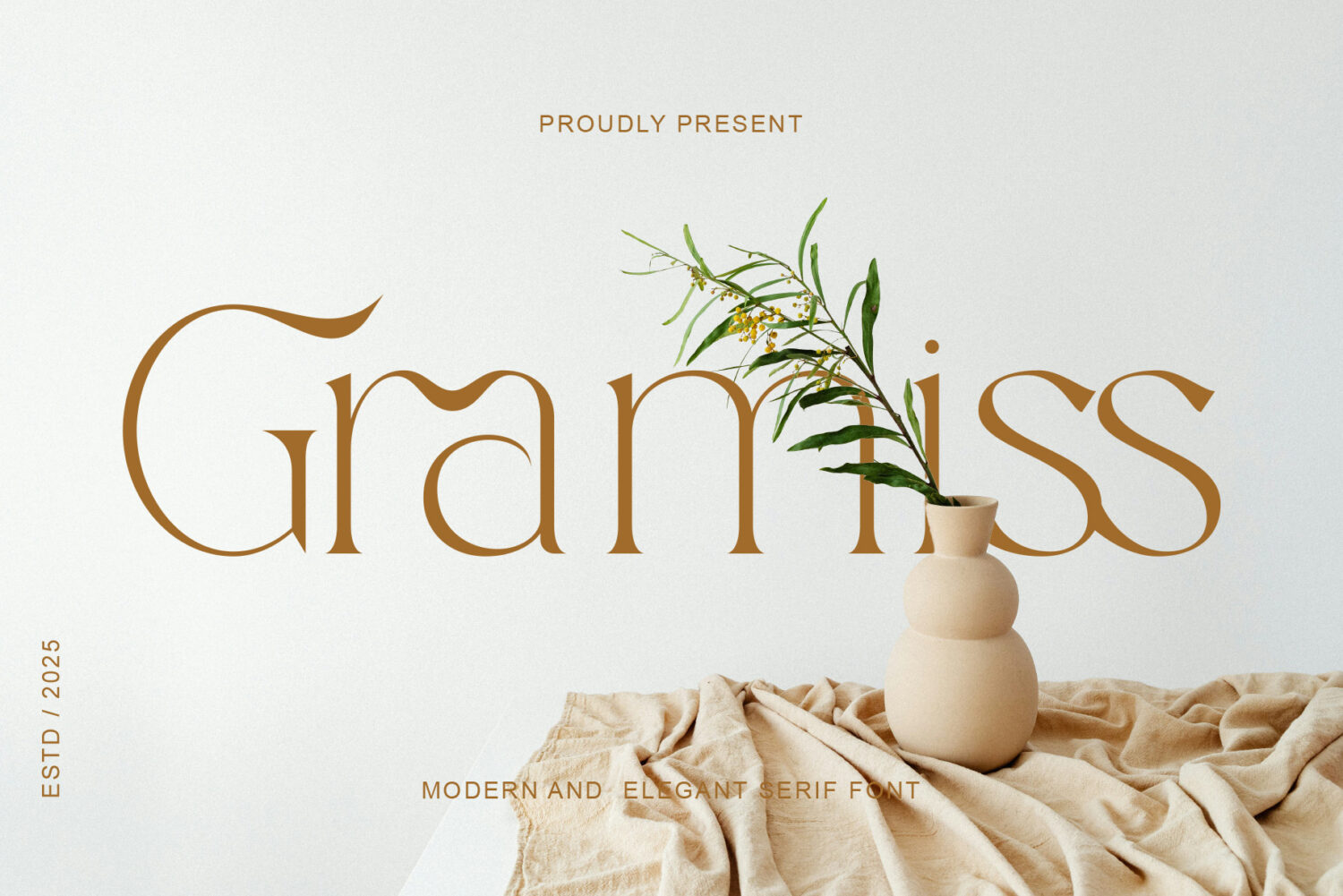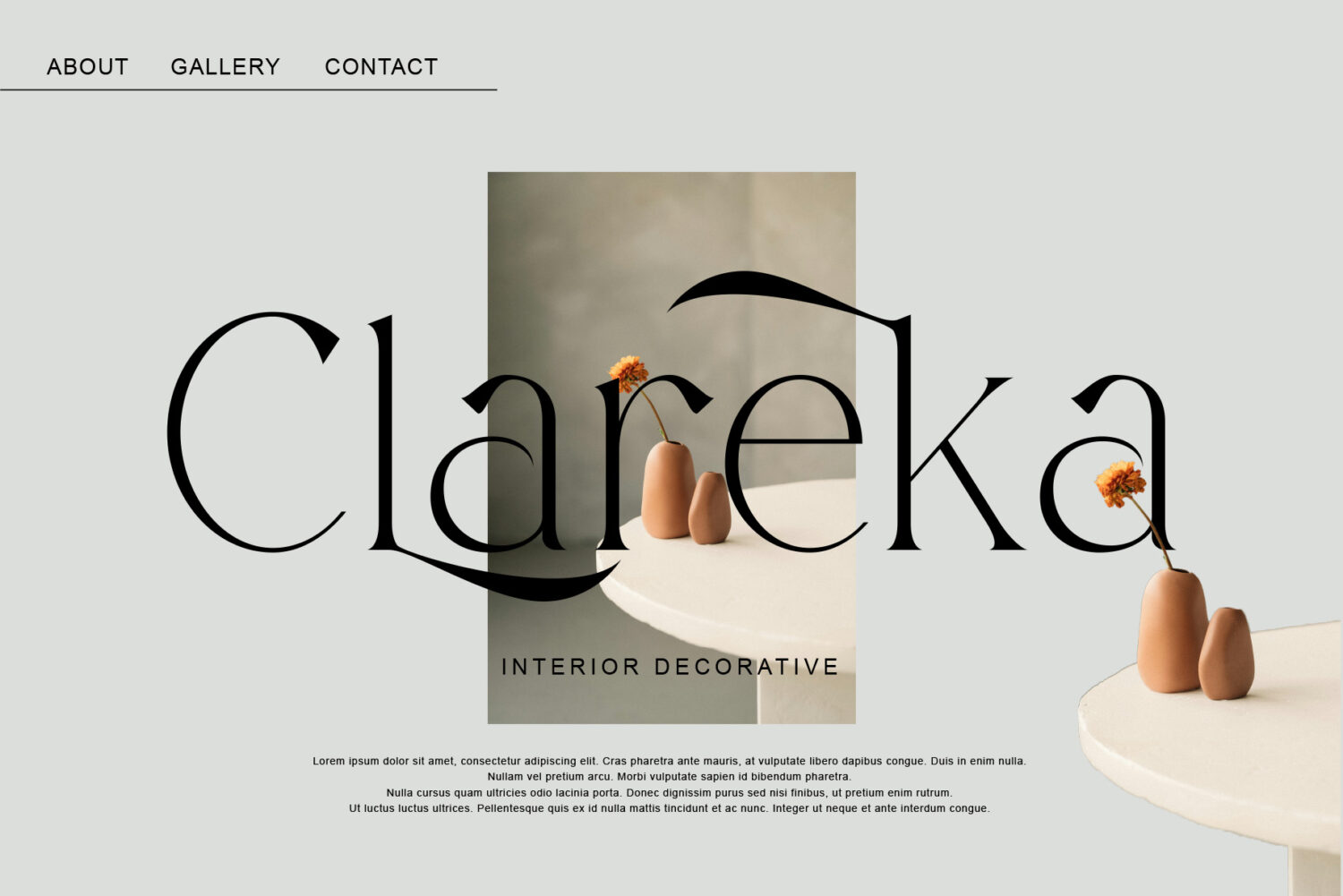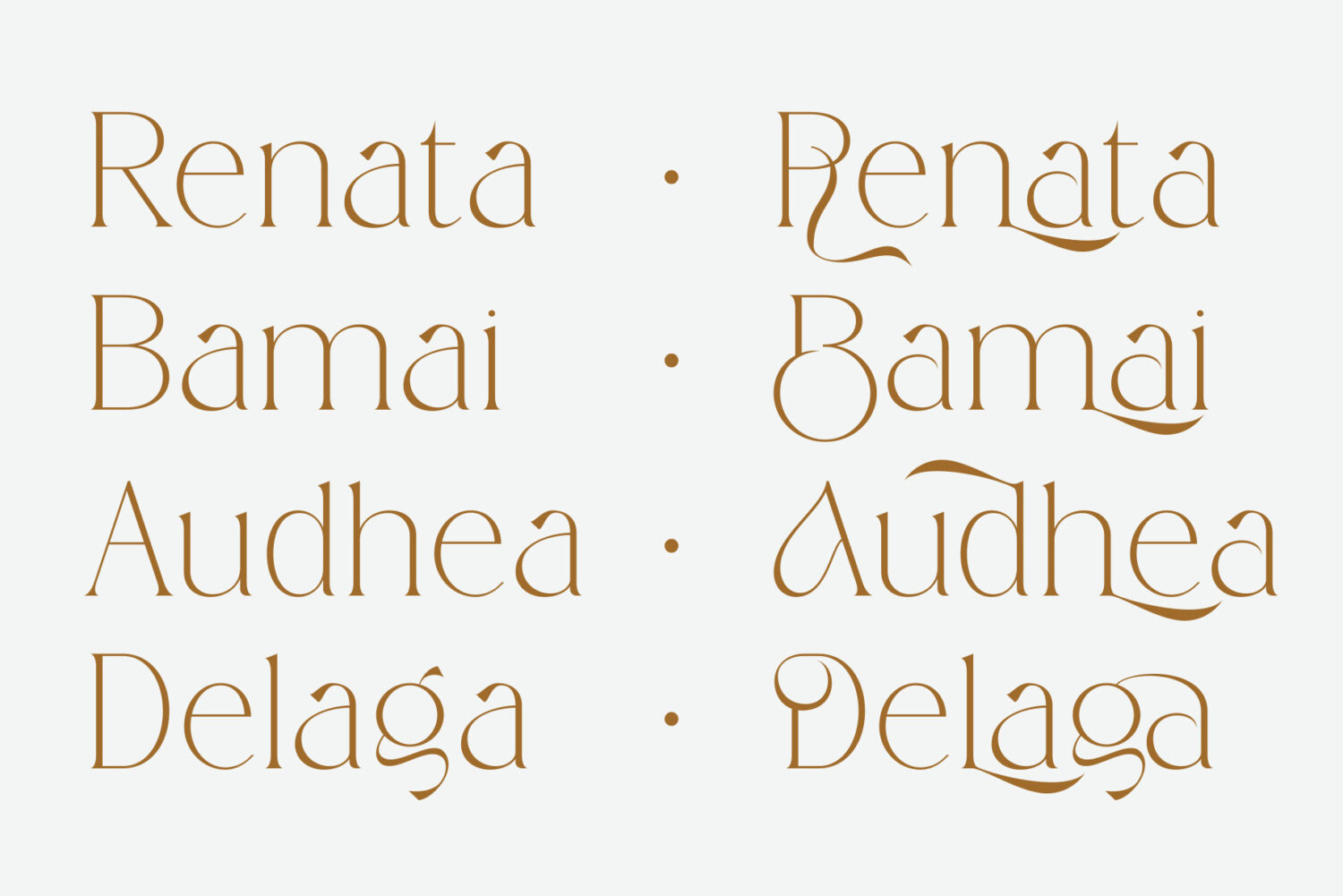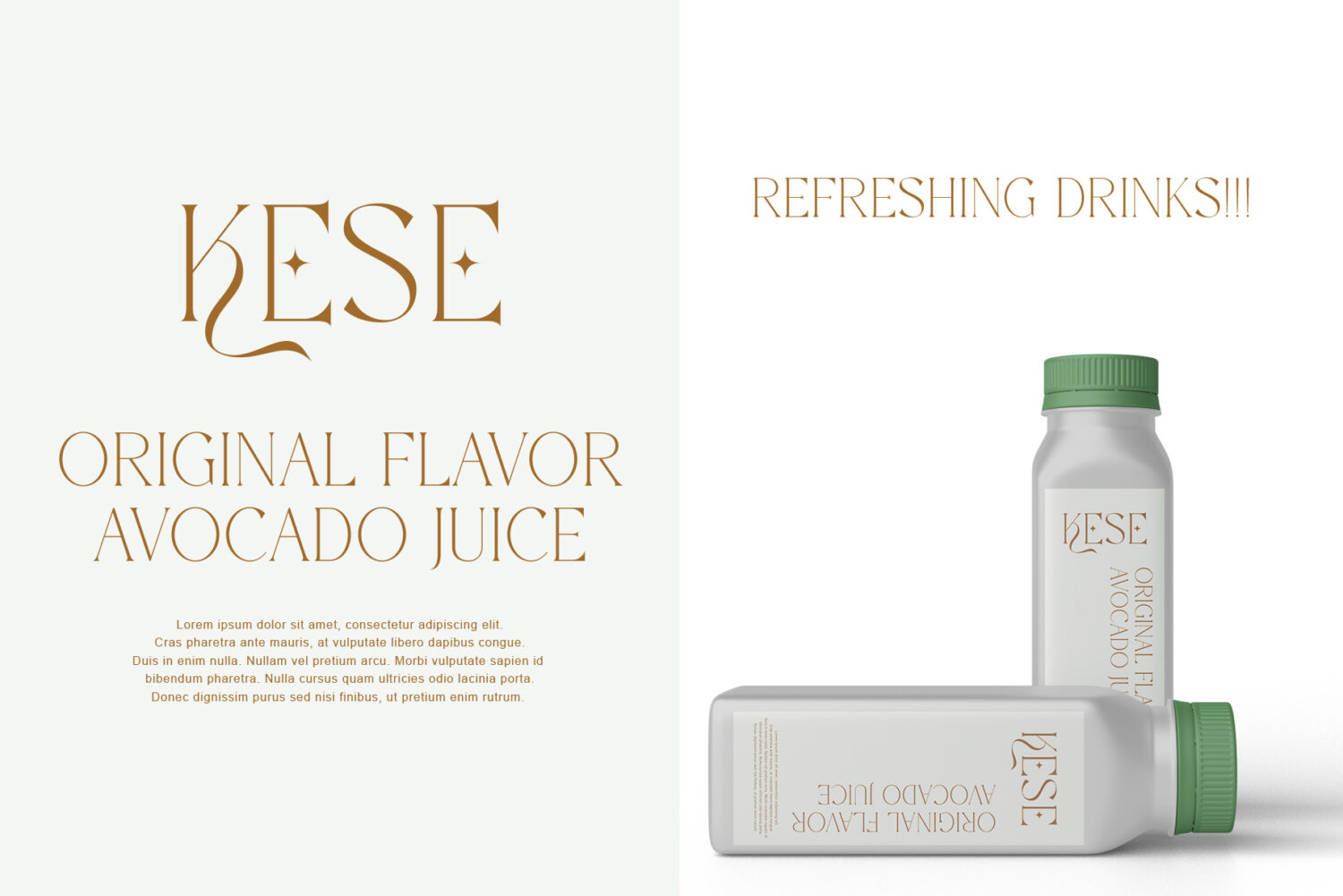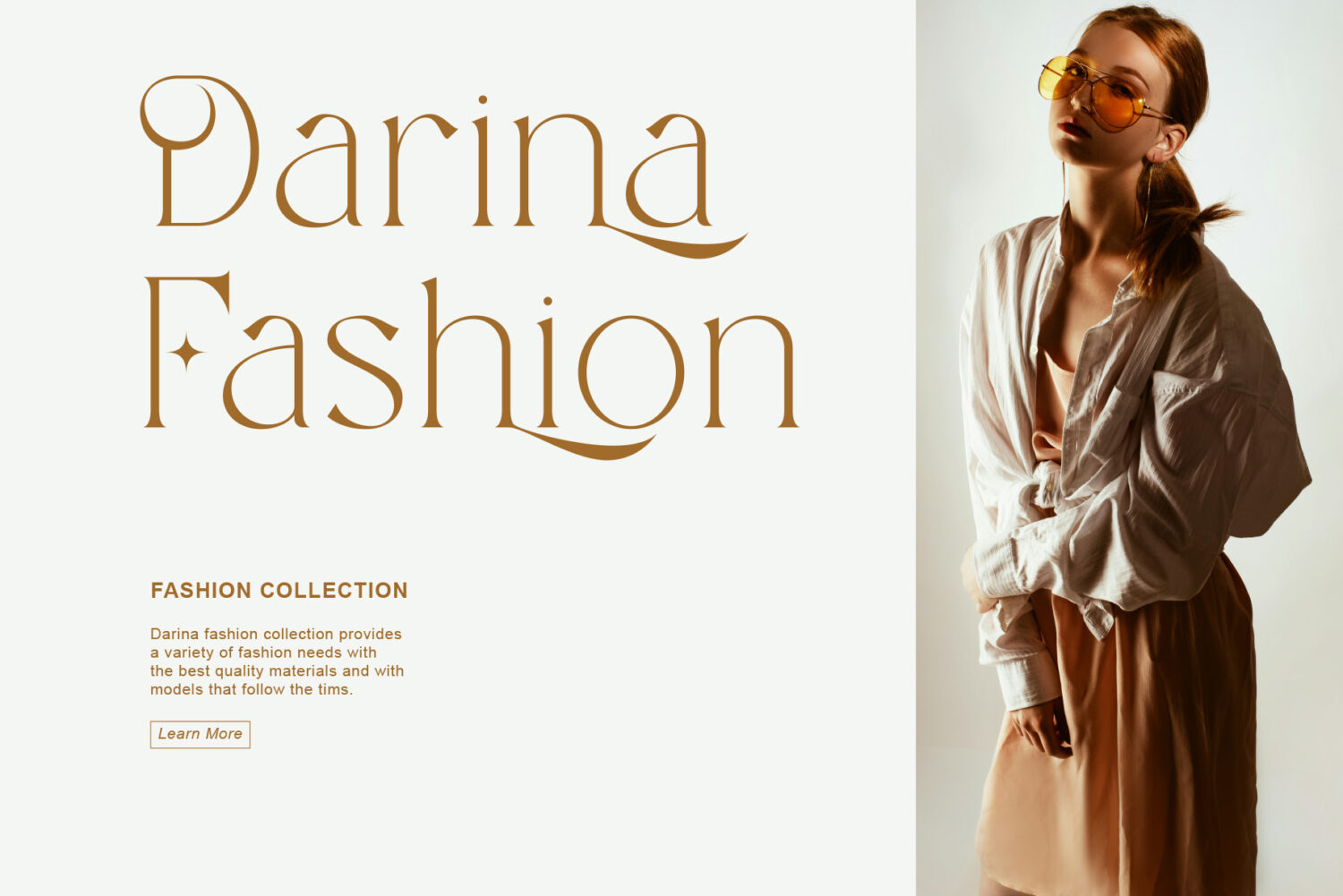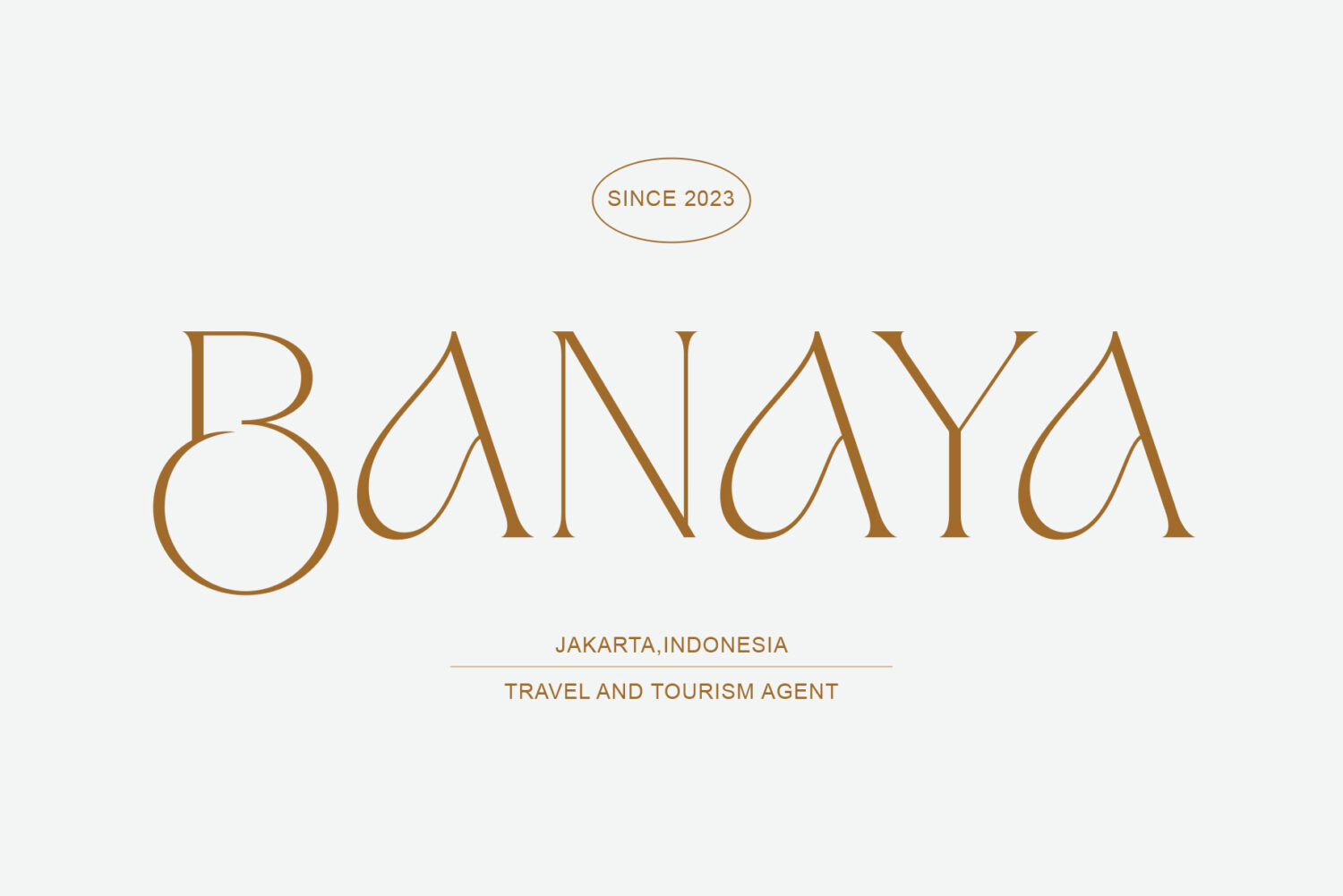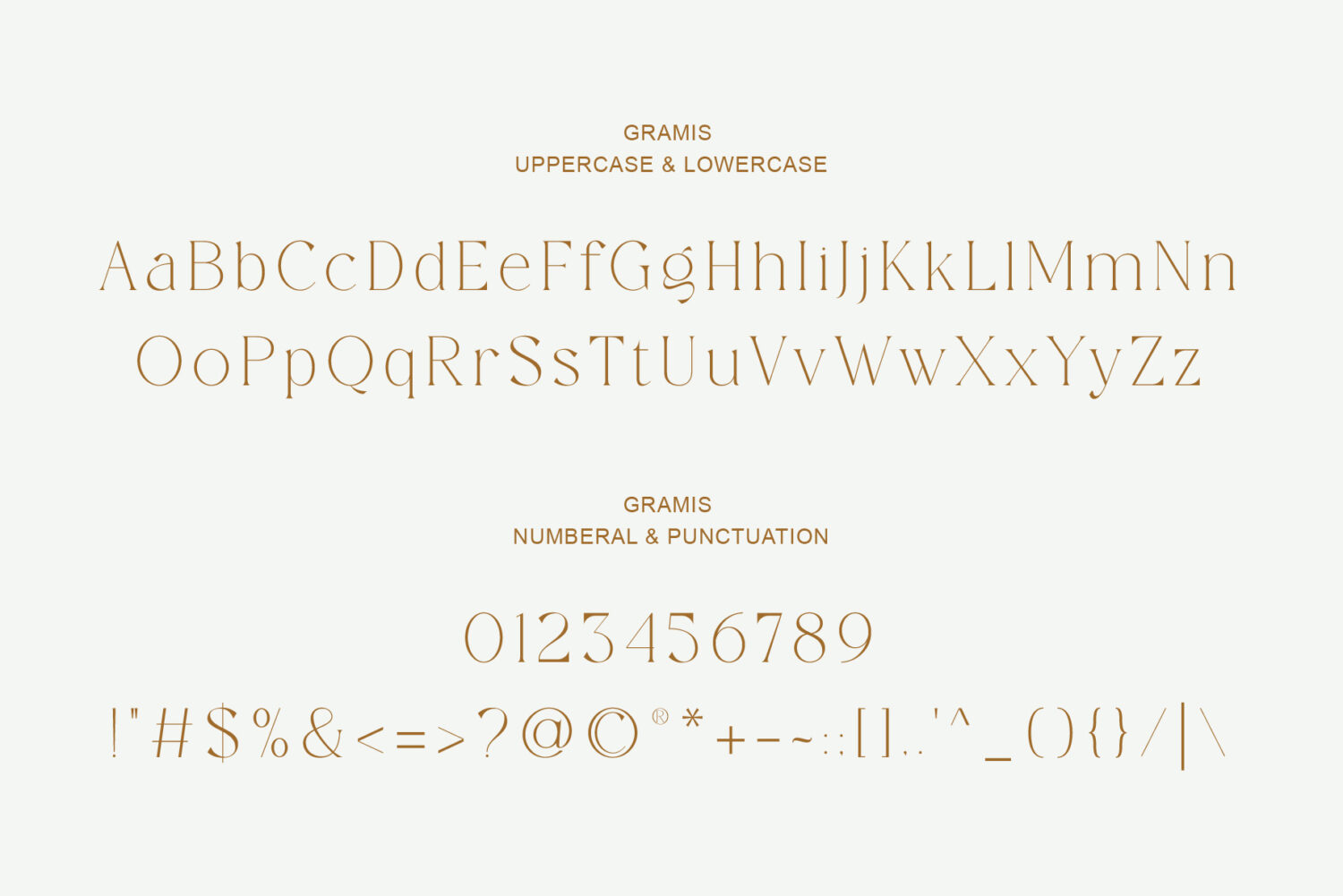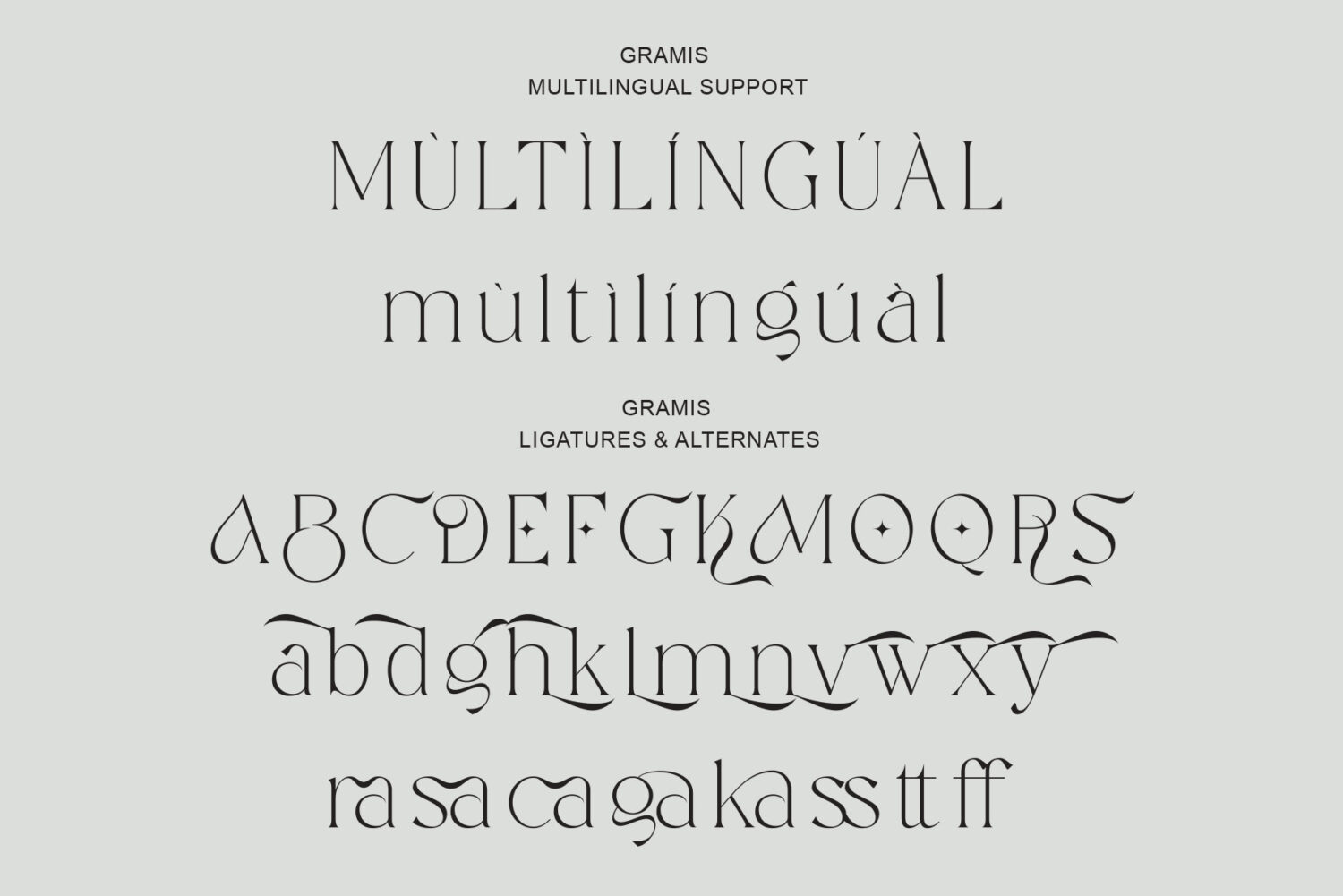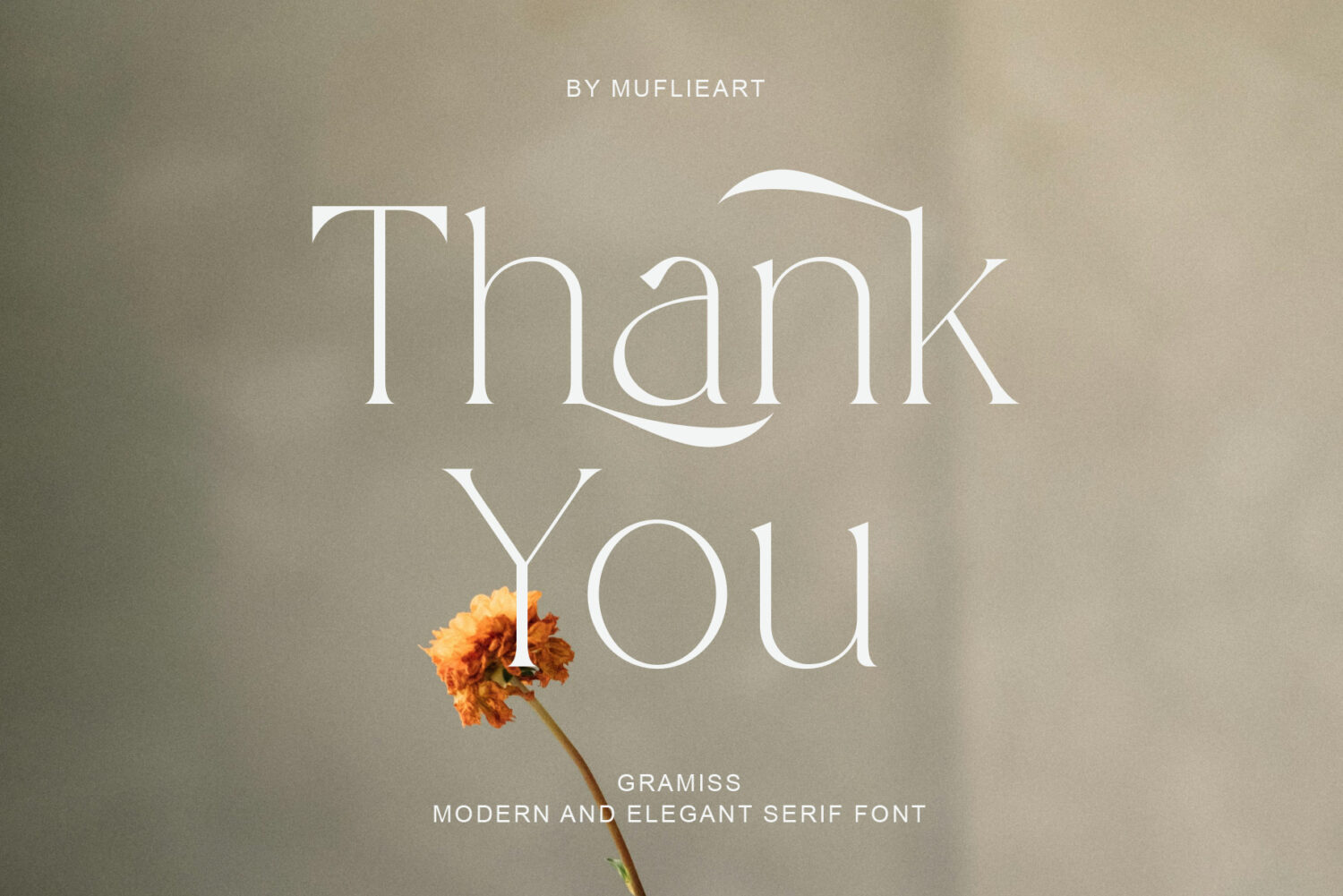
Introducing **Gramiss** the elegant, beautiful, and modern Serif. With its modern and minimalist look, Gramiss brings a luxurious, classy, and clean style to your projects such as websites, modern logos, brand identities, social media quotes, wedding stationery, magazines, and more!
Gramiss features unique and classy capital letters A to Z and also comes with unique alternates and ligatures making Gramiss a beautiful font that can be customized for various projects and jobs you want.
– Alternative styles and ligatures